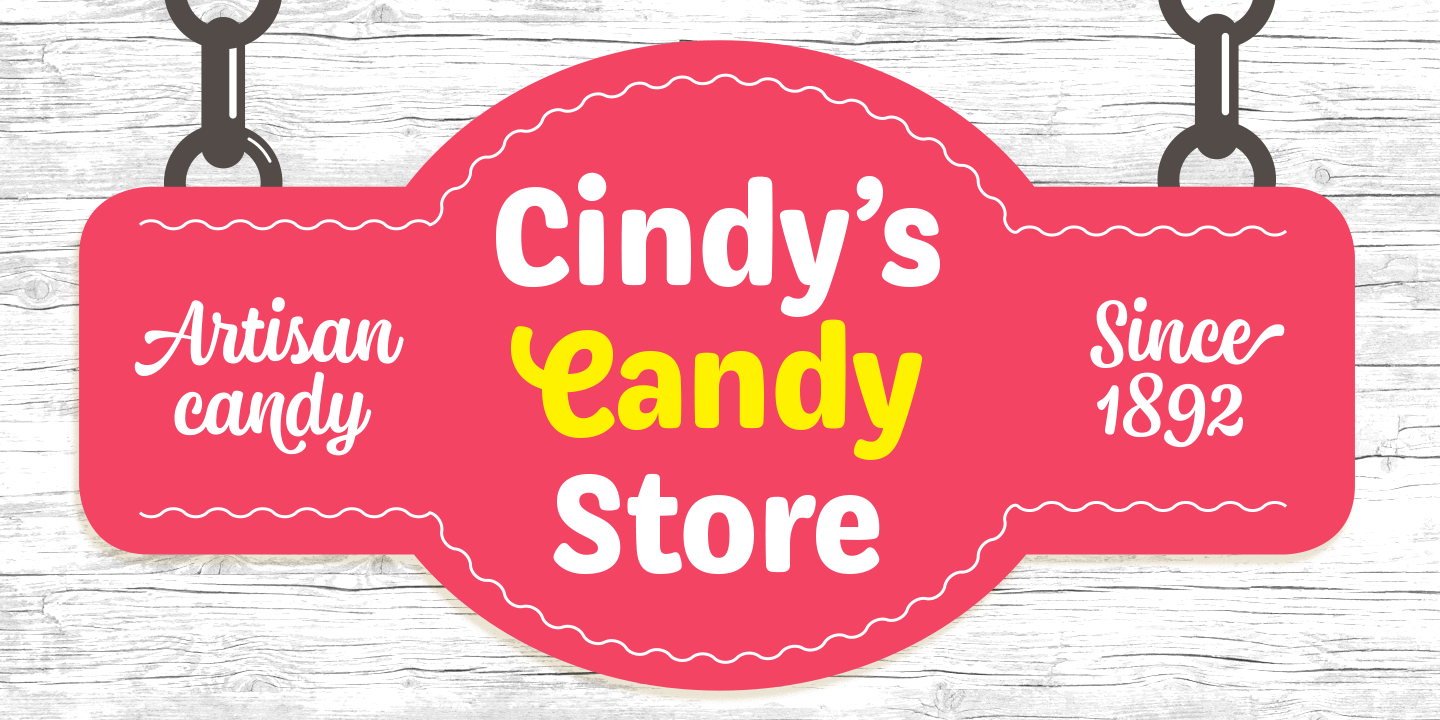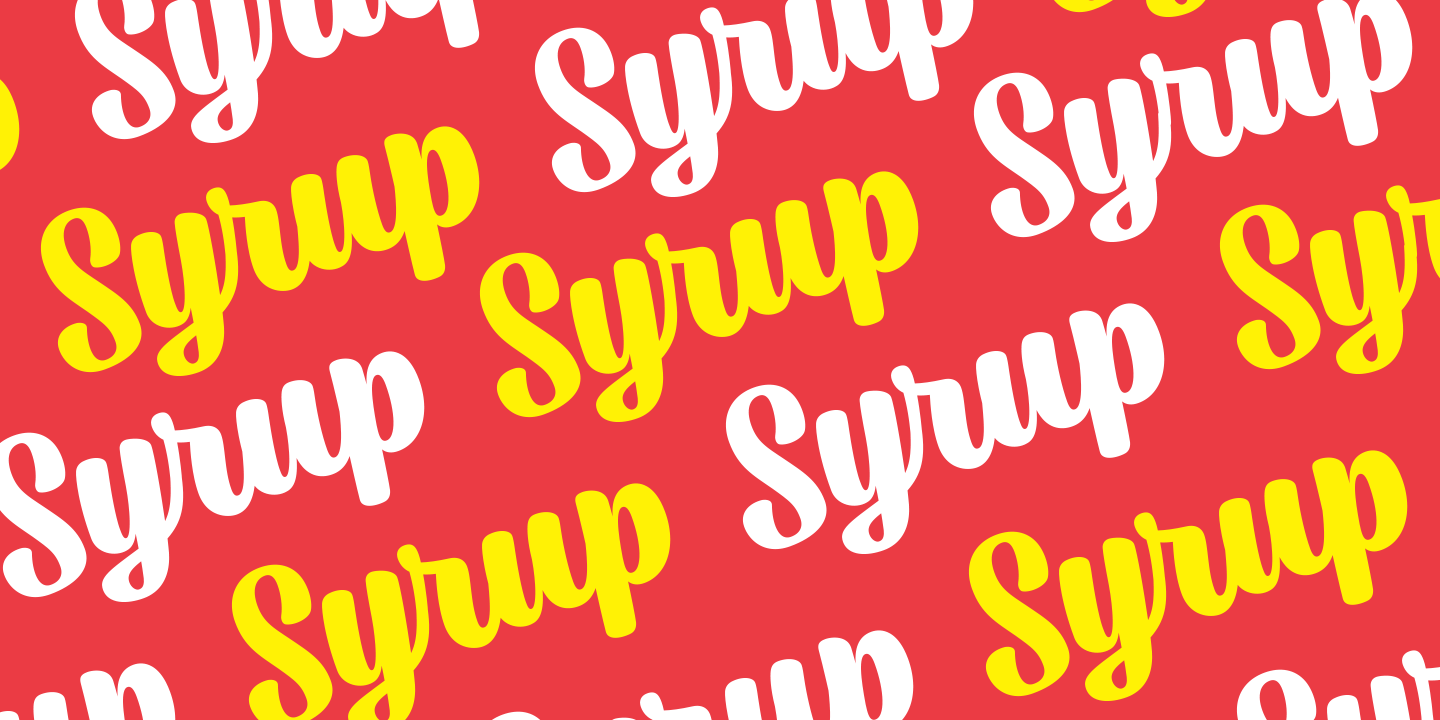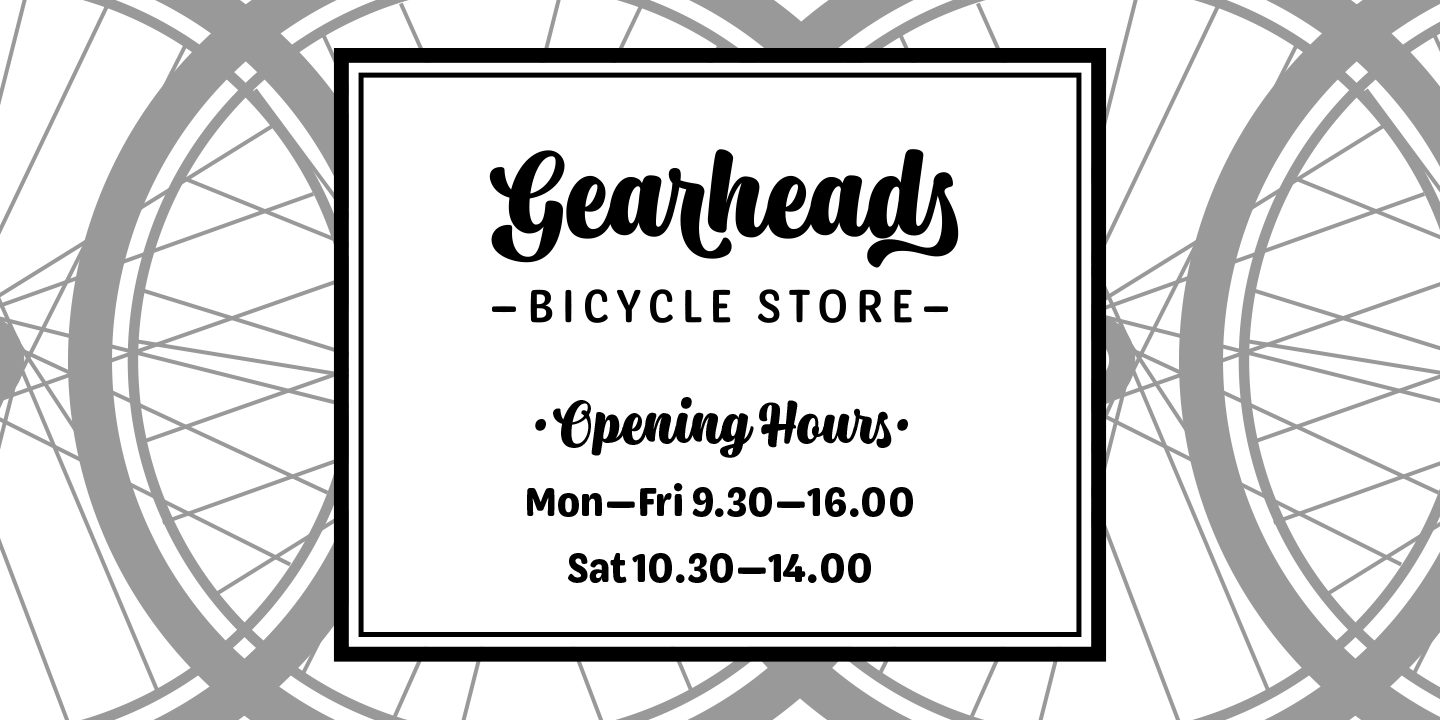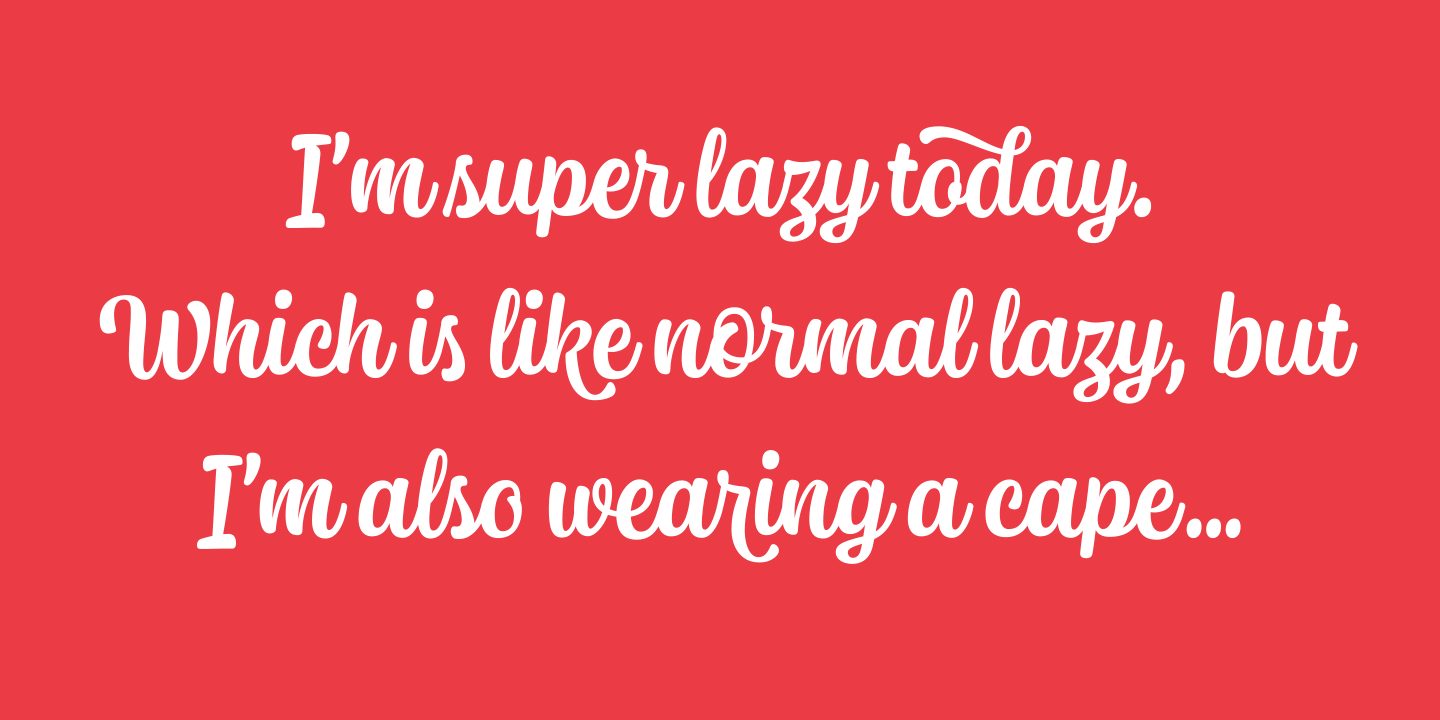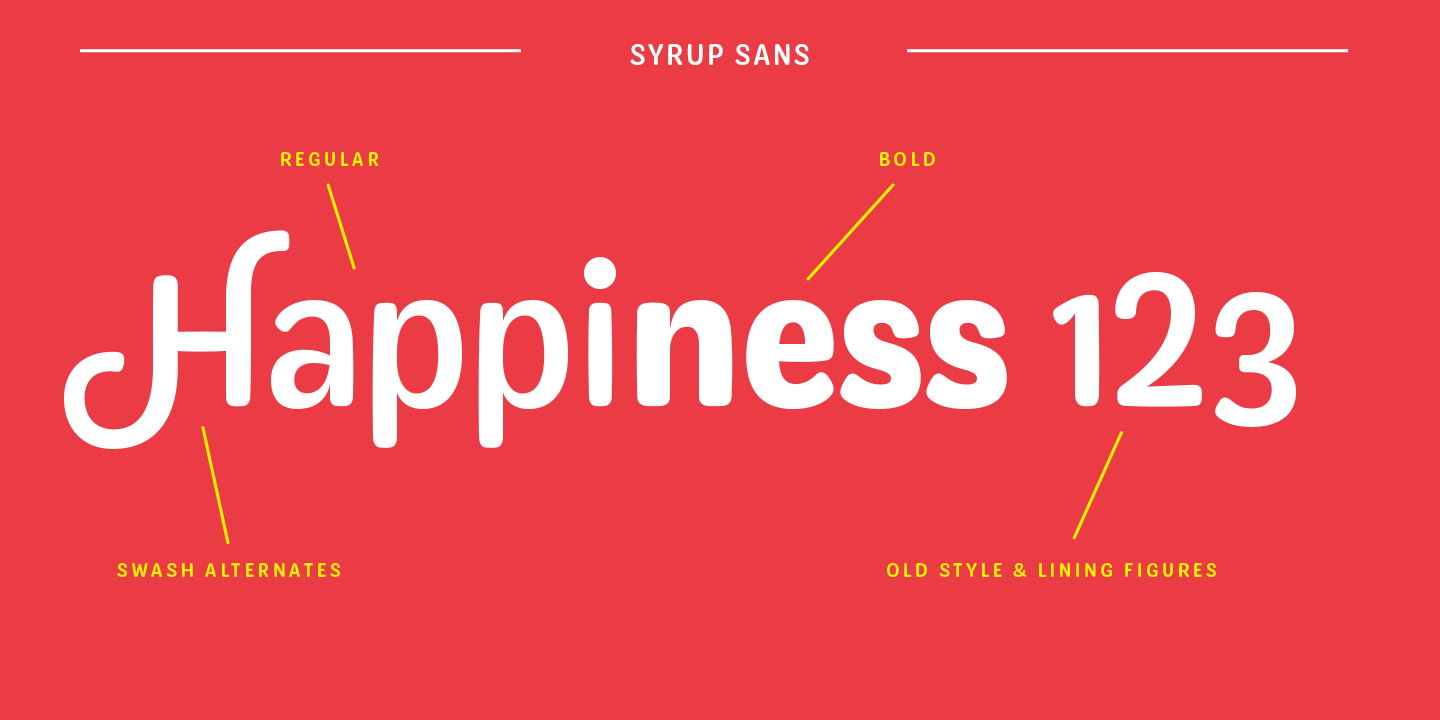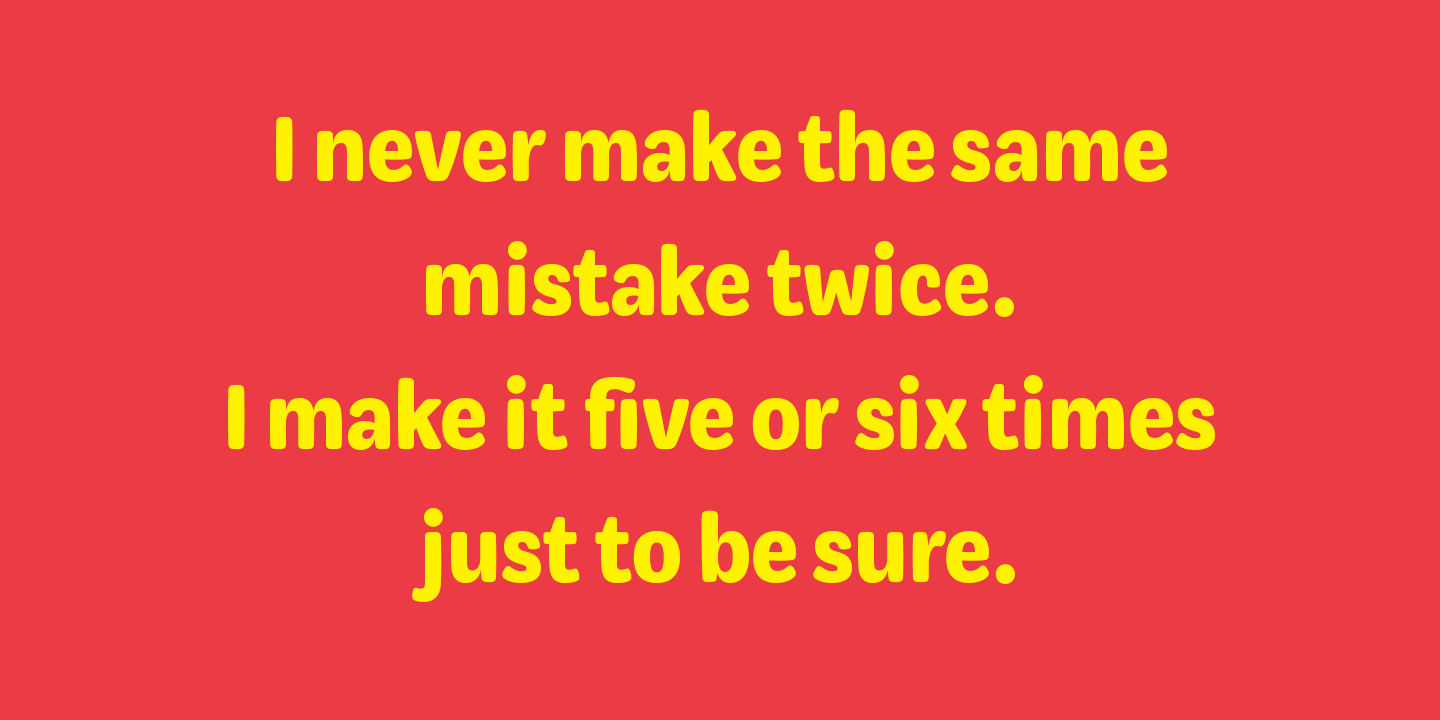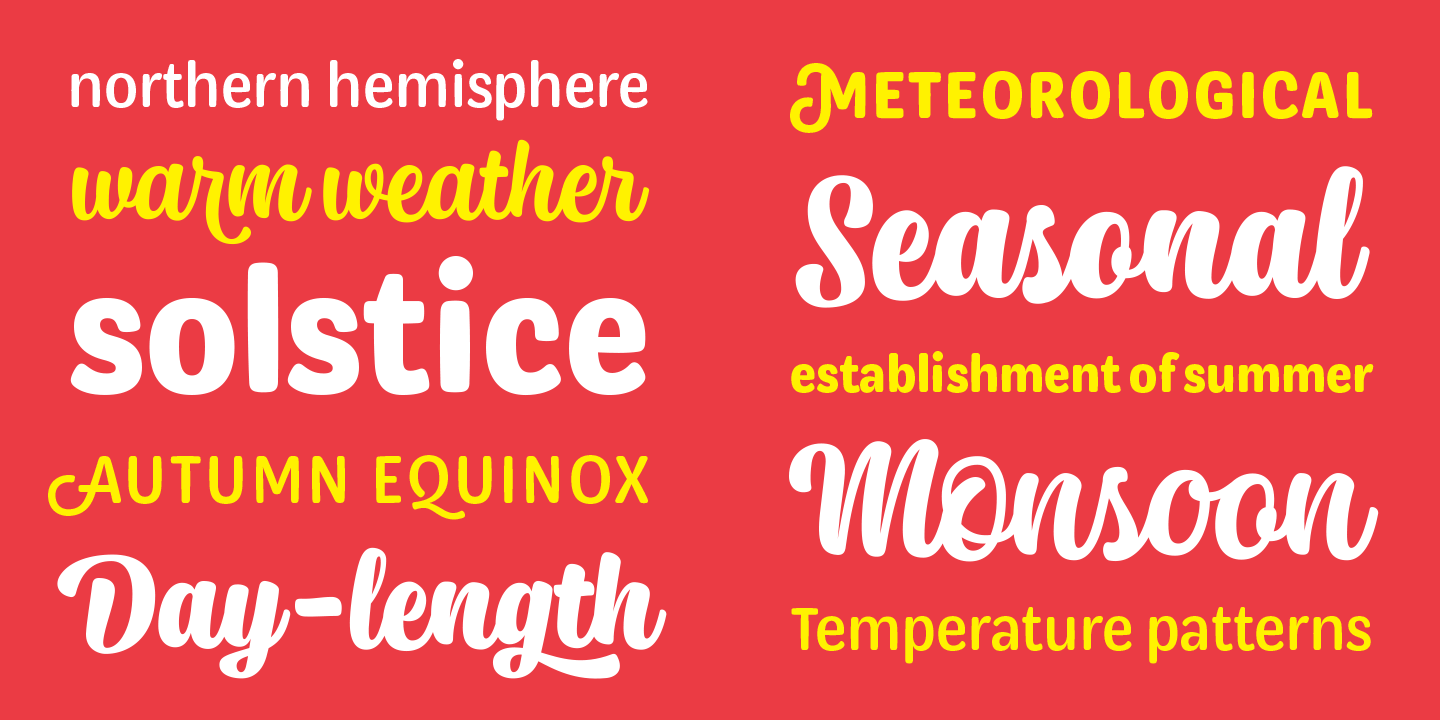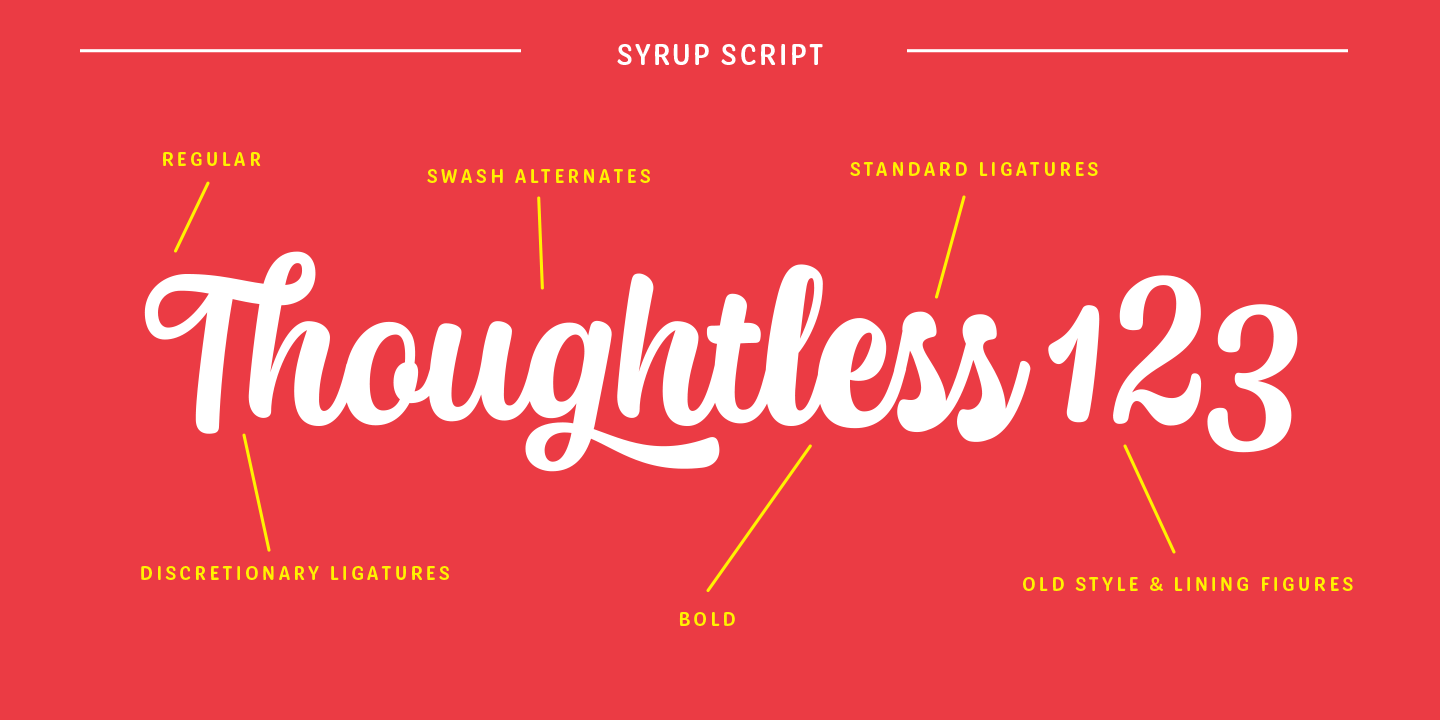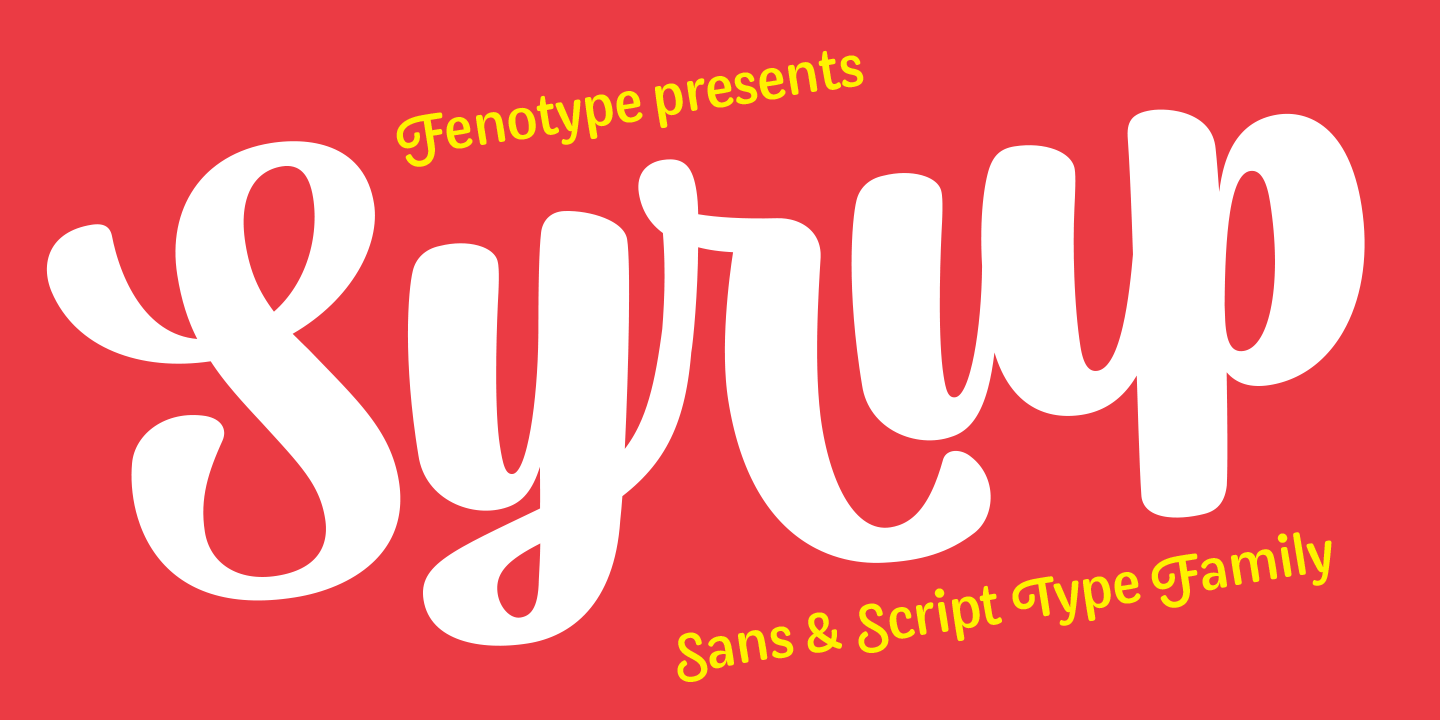
Syrup Family (4 fonts)
The different styles are designed to work well together so you can have multiple levels of typography all with the same feeling and aesthetic. Try combining the styles in different ways for maximum impact.
All styles are packed with Opentype features to enable flexible customisation of your design and the font is especially well suited for branding and packaging typography.
Old-style Digits, Ligatures, Discretionary Ligatures, Swash, Superscript